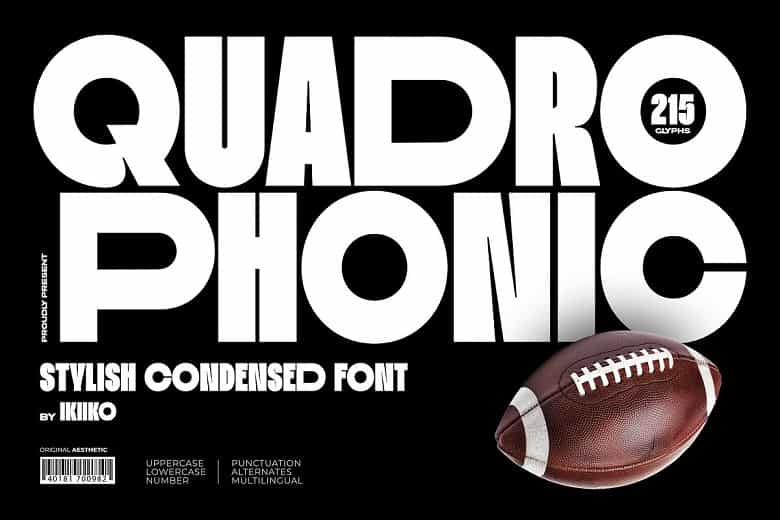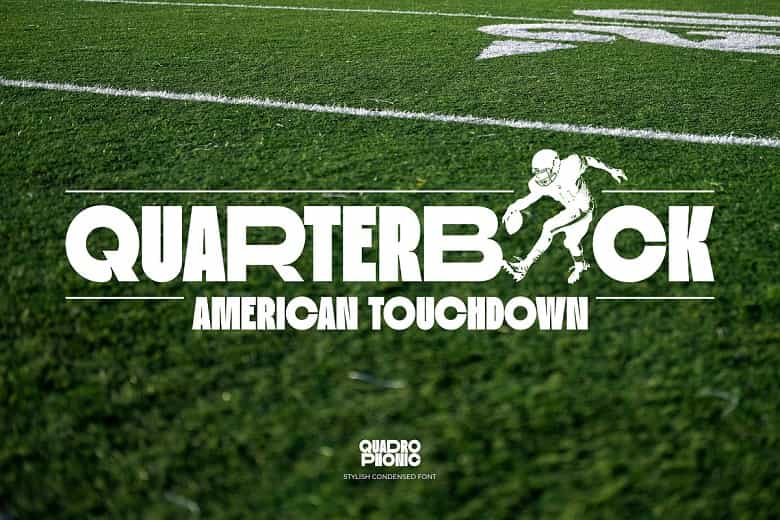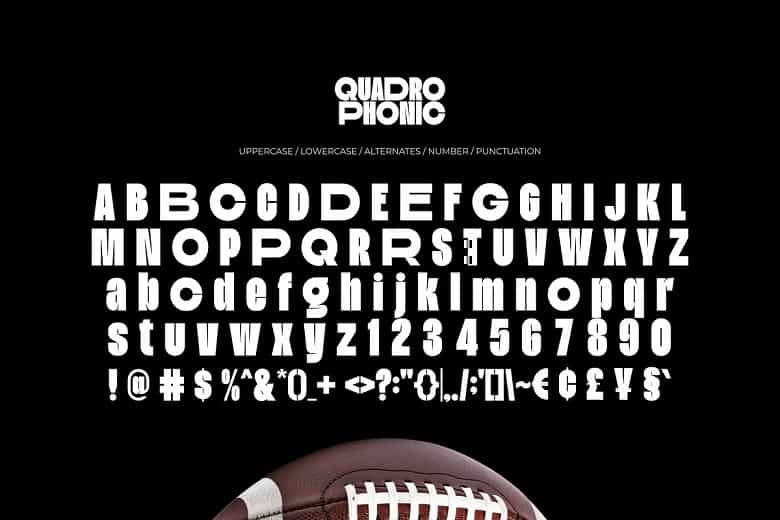
Quadrophonic is a modern, stylish and very distinctive condensed sans font which is perfect for making statements. It’s a bold and confident typeface, which can be felt in each movement, and this font is perfect when a project needs a powerful and assertive look. Due to its compact form, it provides the information in a limited area therefore usable in different designs with minimal interference with the information passed.